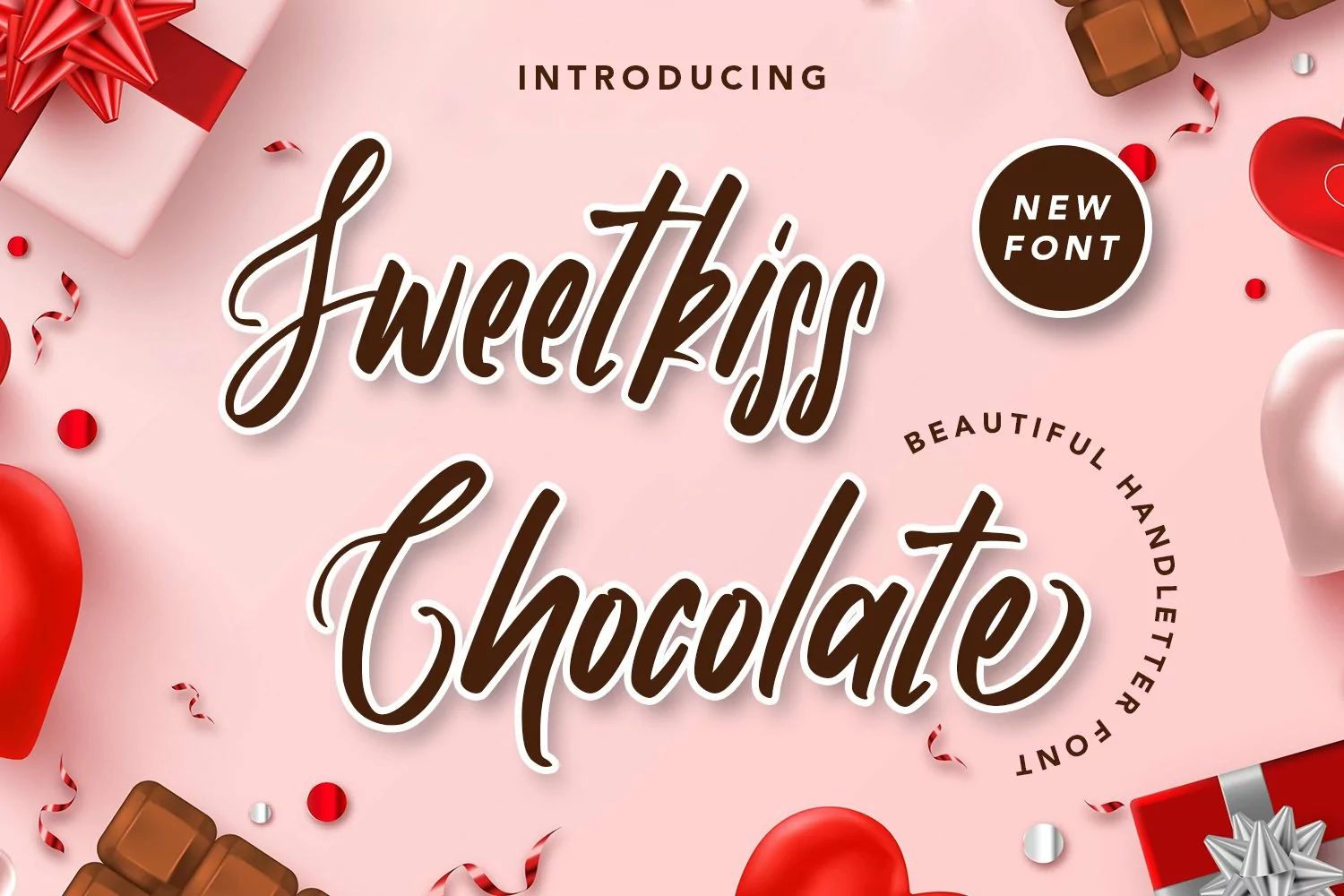
SweetkissChocolate - Handletter Font that contain lowercase, uppercase, symbol, and also support multi language. There’s a lot ligatures in this font. This Font also comes with ligatures, alternates and many more. this font suitable for fashion, branding, catalog and other design what you want.